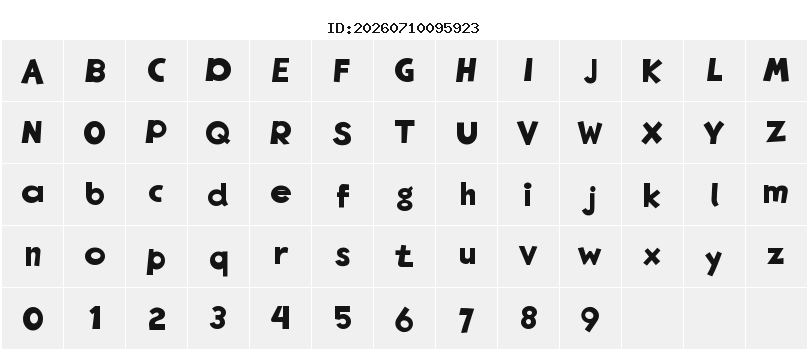
Egmont New 2 Preview
• Font Name: Egmont New 2
• Font ID: EgNew Thick:Version 2.00
• Full Font Name: EgNew Thick 2
• Version: Version 1.00 December 24, 2015, initial release
• PostScript Name: EgNew-Thick2
• Character Count: 227
• Designer: Dan P. Lyons
• Manufacturer: Dan P. Lyons
About Egmont New 2.ttf
Egmont New 2.ttf is a modern, elegant sans-serif font designed for ultimate readability and visual harmony. Perfect for branding, headlines, web design, and print materials.